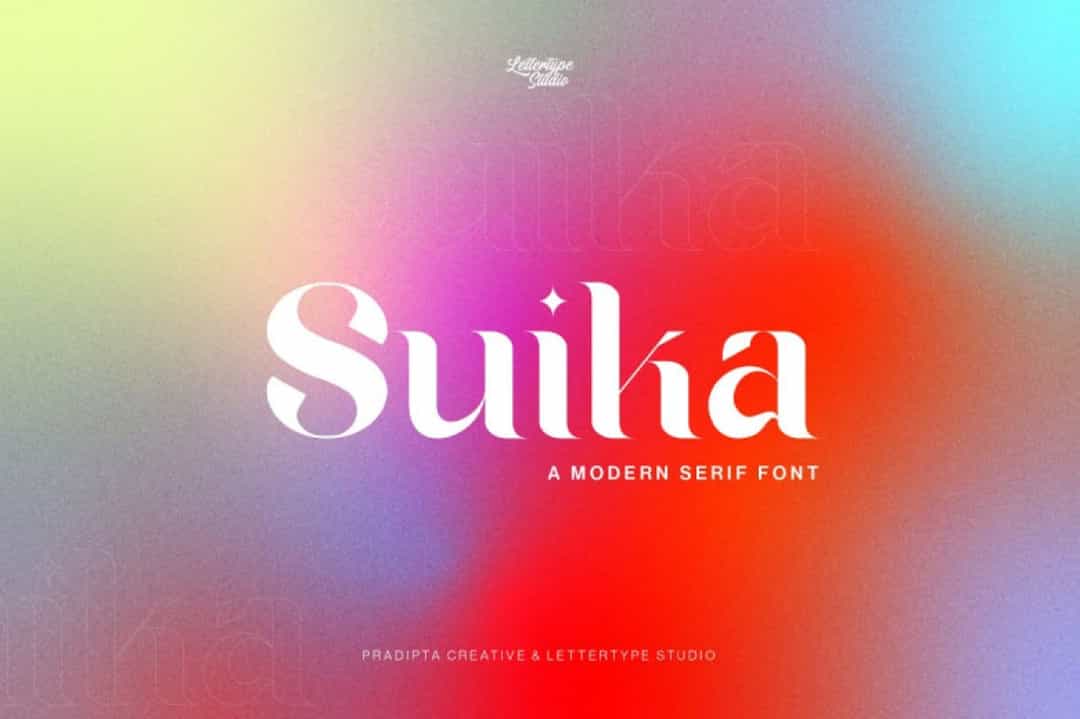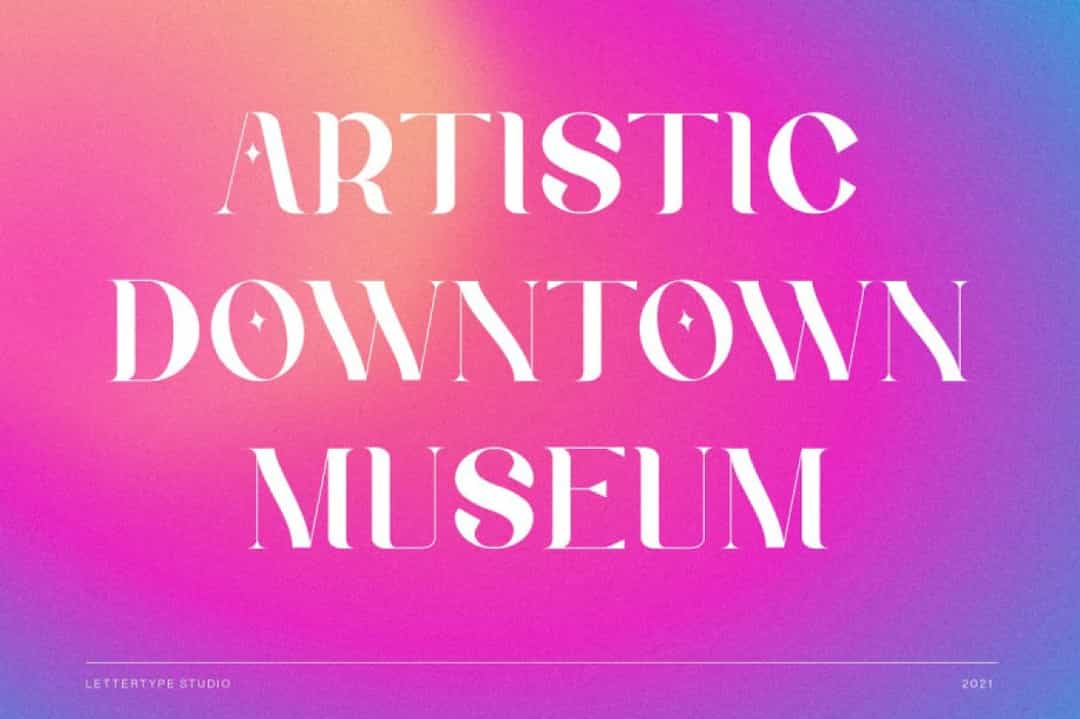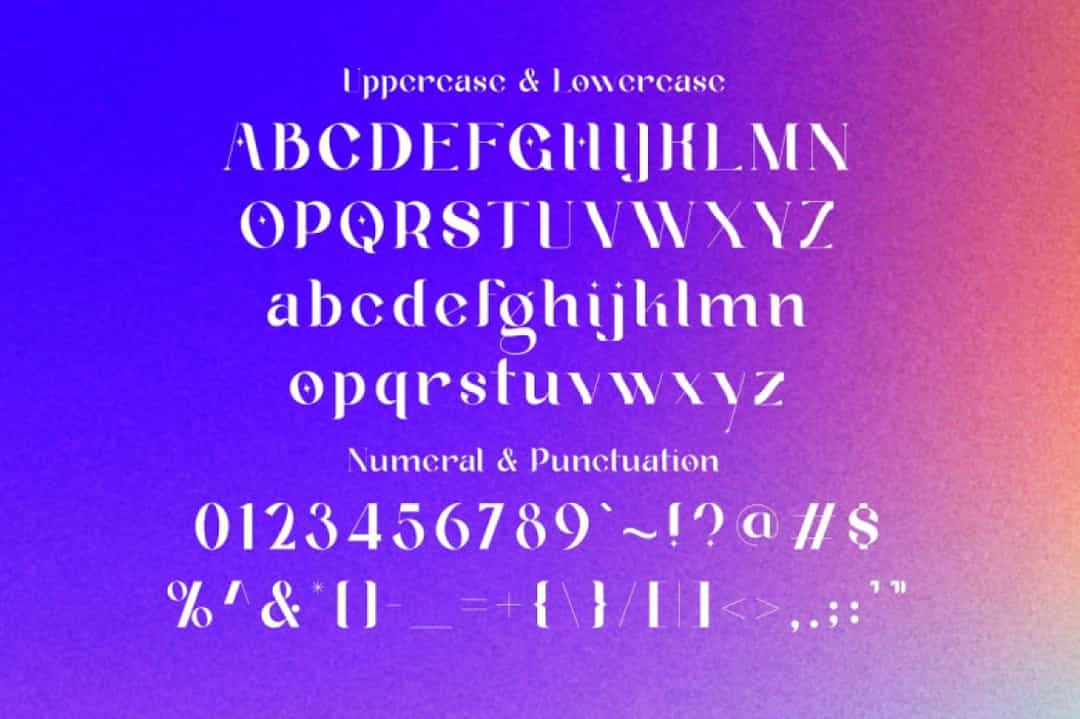
Suika Serif Typeface is an elegant combination of traditional and contemporary serif fonts designed specifically to make designs appear striking and beautiful. Perfect for branding, logo design signage, clothing and wedding invitations, posters and much more.